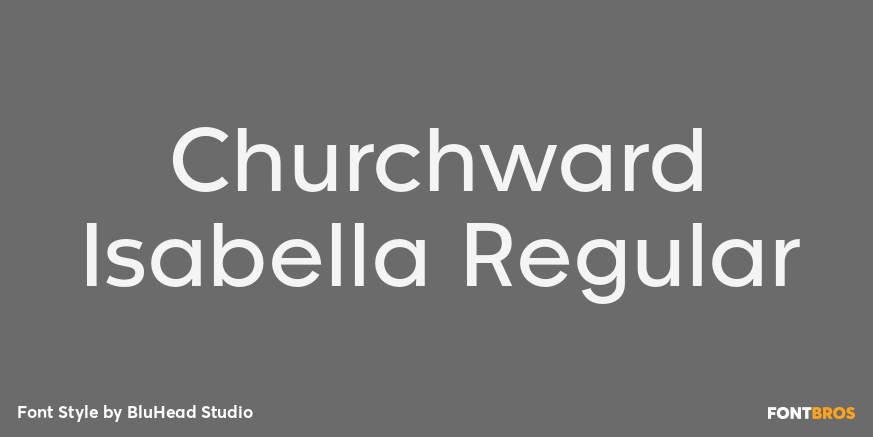
Churchward Isabella Regular
Churchward Isabella Regular is one of a five weight typeface family originally designed during the 1980's by the late type designer Joseph Churchward. A straightforward, geometric sans serif, Isabella is a no-nonsense, highly legible workhorse design, readable on screen as well as in print, for text, headline and display. Churchward Isabella Regular contains proportional and tabular figures, superiors and inferiors as well as unlimited fractions. It also supports an extended character set that covers many western European languages.